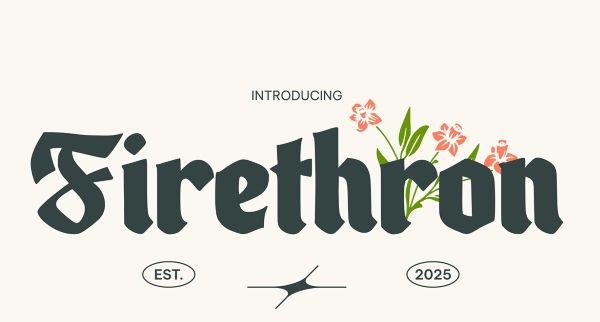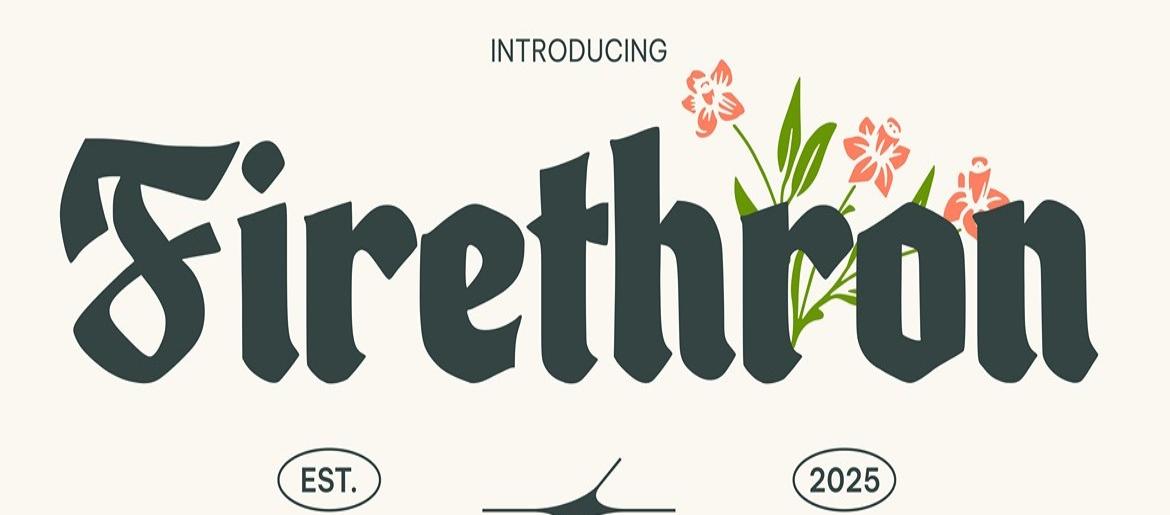
Firethron Font
Firethron is an organic blackletter display typeface that brings a raw, expressive twist to the gothic tradition. Where classic blackletter tends toward rigid geometry, Firethron softens and distorts its forms with fluid, almost fire-like strokes that give the typeface a wild, untamed energy. It suits heavy metal aesthetics, dark branding, editorial work, and apparel with a rebellious edge.